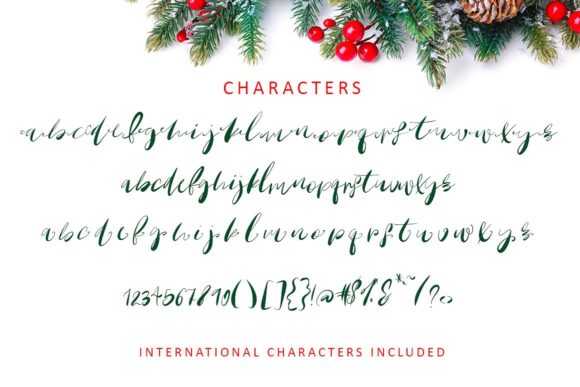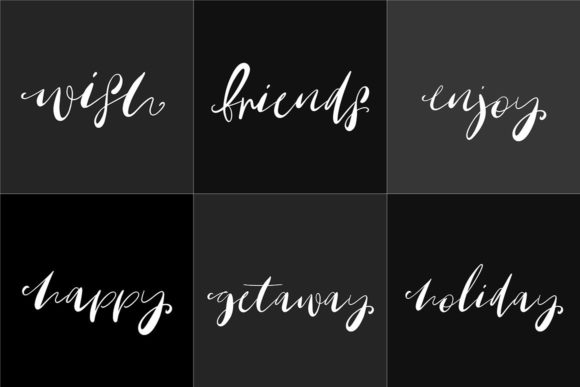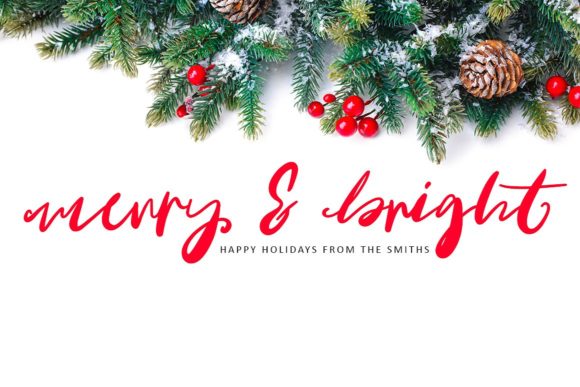
Oh Mistletoe Font
About Oh Mistletoe Font
The Oh Mistletoe is a fun, irregular script font. It has a happy look and is perfect for Christmas cards and notes!